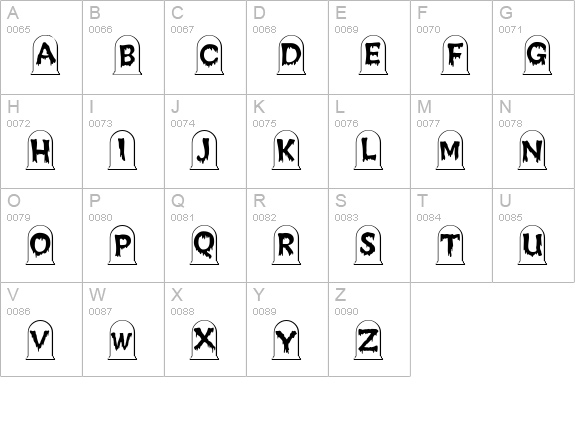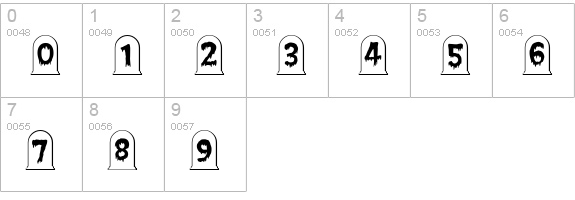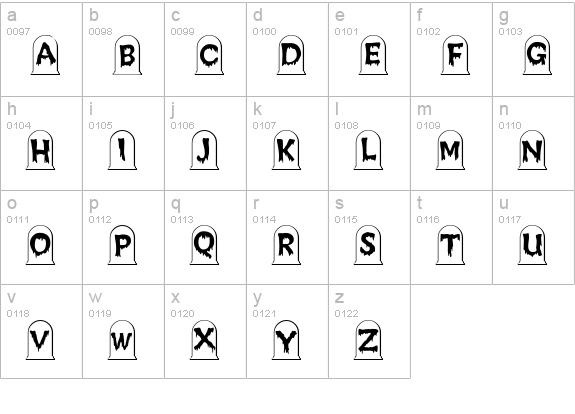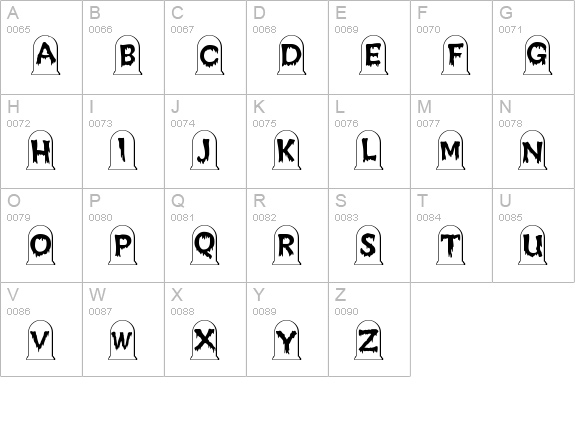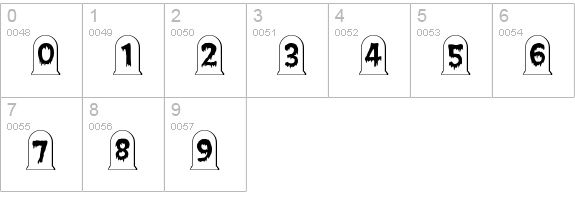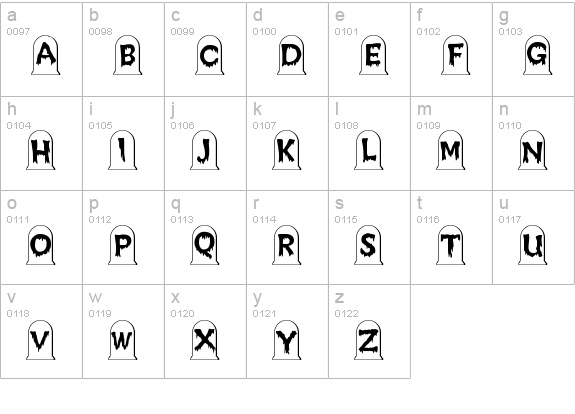
CreepyGraves Font Details
CreepyGraves font is a hauntingly beautiful typeface that exudes an eerie and mysterious vibe. Its twisted, almost skeletal letterforms give off an unsettling feeling, perfect for adding a touch of spookiness to your designs. This font is ideal for Halloween-themed projects, horror movie posters, or anything that requires a macabre touch. The jagged edges and uneven strokes of CreepyGraves font create a sense of unease, making it a perfect choice for adding a touch of darkness to your designs. Whether you're looking to create a creepy invitation, a spooky website header, or a chilling social media post, this font will surely send shivers down your audience's spine. Best of all, CreepyGraves font is available for free download at FontsMarket.com. So go ahead and unleash your inner darkness with this spine-chilling typeface!